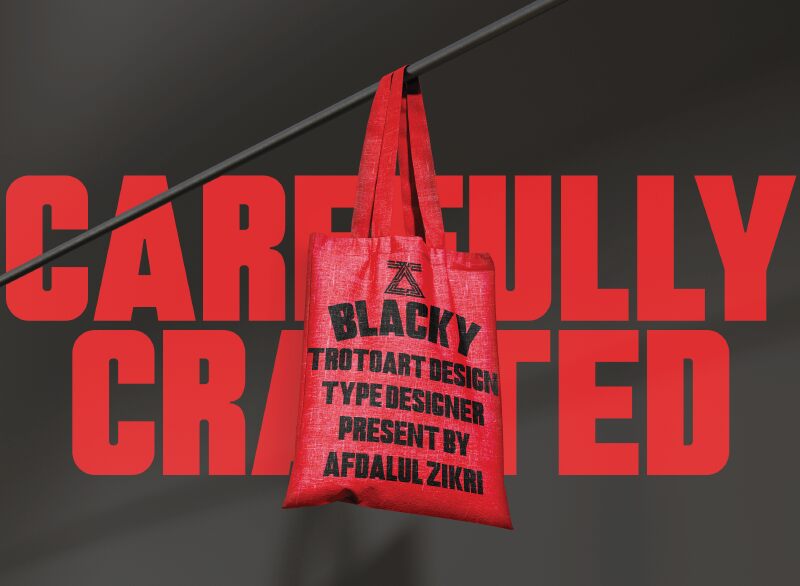
Blacky, a powerful and elegant sans-serif font created by Trotoart, commands attention with its bold and condensed design. Inspired by the latest design trends, this typeface exudes a commanding presence, each letter crafted with a distinct thick and strong style. Blacky's striking aesthetic lends itself to a modern, impactful visual aesthetic, making it an ideal choice for designers seeking to create eye-catching designs that leave a lasting impression.
Blacky's versatility shines through its suitability for a diverse range of design applications. From captivating posters and social media graphics to attention-grabbing headlines and large-scale titles, this font's robust and focused style ensures it stands out, making it a perfect fit for projects that demand a strong, authoritative presence.
Blacky has 3 font styles including:
Semi Rounded
rounded